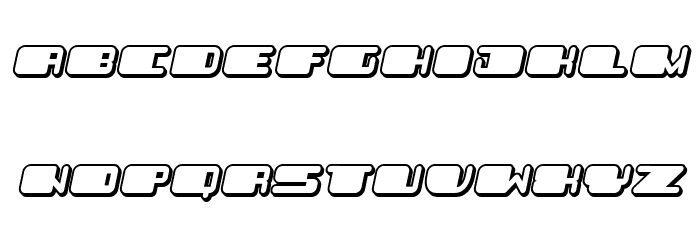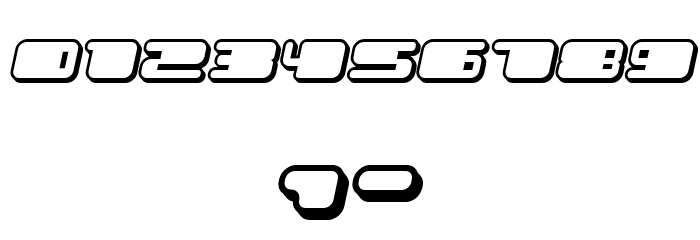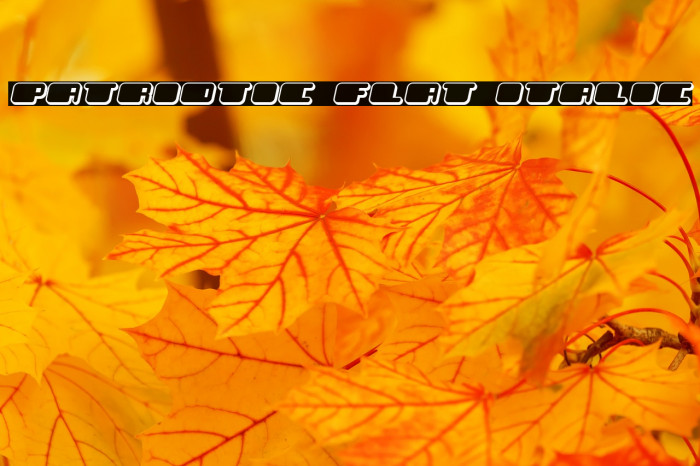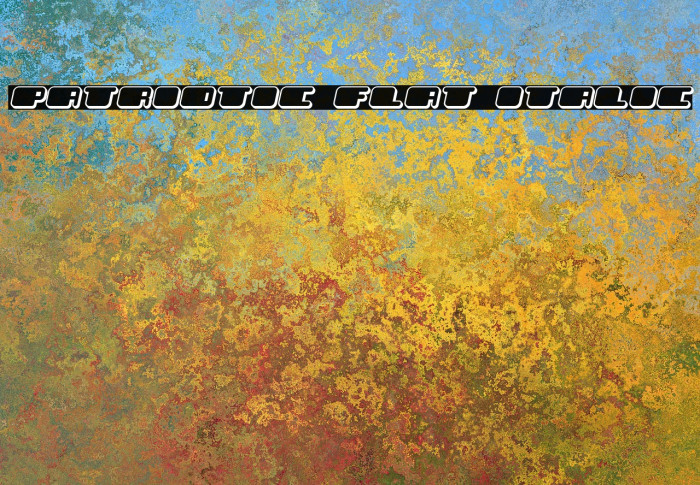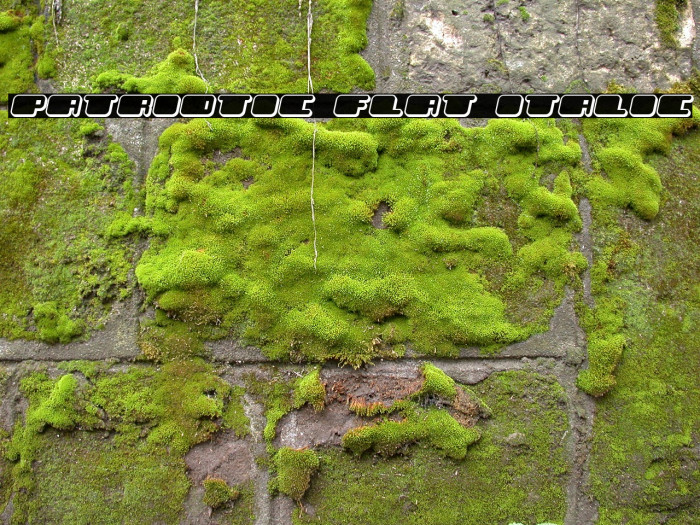
Patriotic Flat Italic Font
This font features a bold, geometric style with a distinct outline that gives it a three-dimensional appearance. The characters are uniformly structured, with rounded edges and a consistent thickness throughout. The uppercase and lowercase letters maintain a cohesive design, enhancing readability while adding a modern flair. The numbers and special characters follow the same stylistic approach, ensuring a harmonious look across all text elements. This font's unique style makes it suitable for projects that require a futuristic or tech-inspired aesthetic.
A bold, geometric font with a three-dimensional outline and modern appeal.
- Proposed Projects: Ideal for tech branding, futuristic posters, video game titles, and digital media.